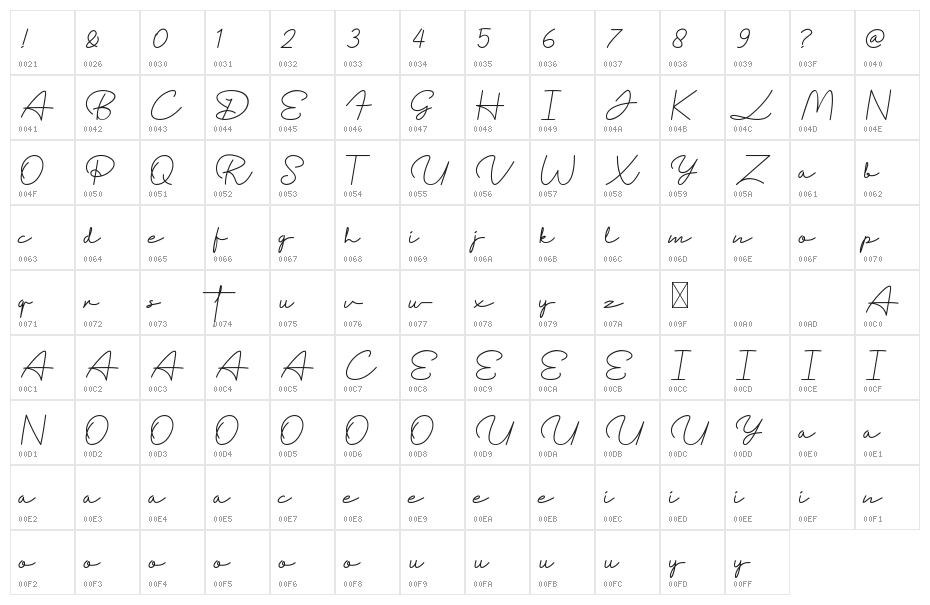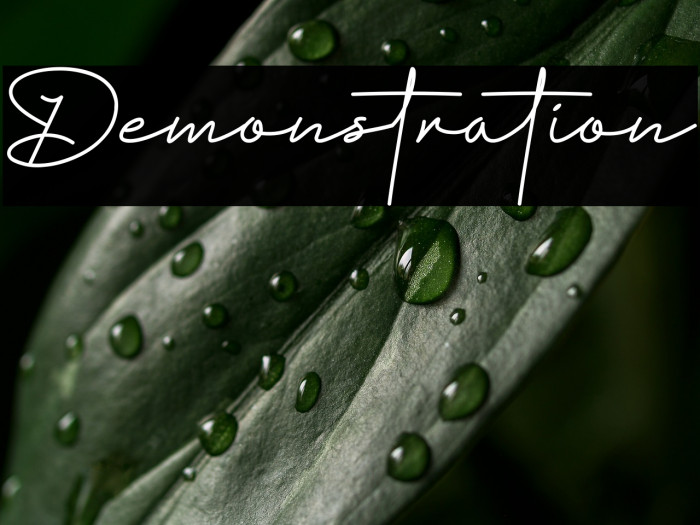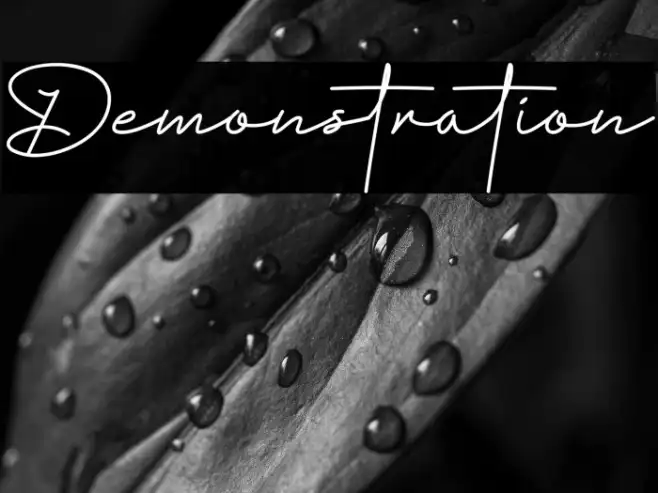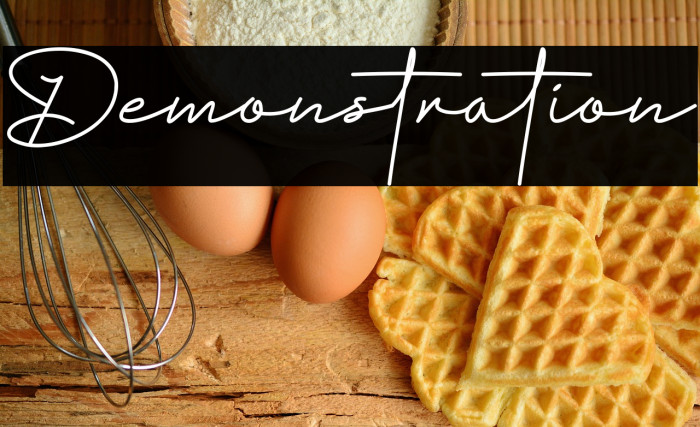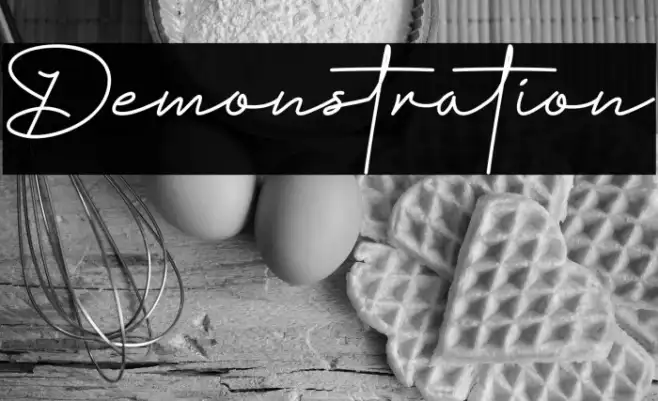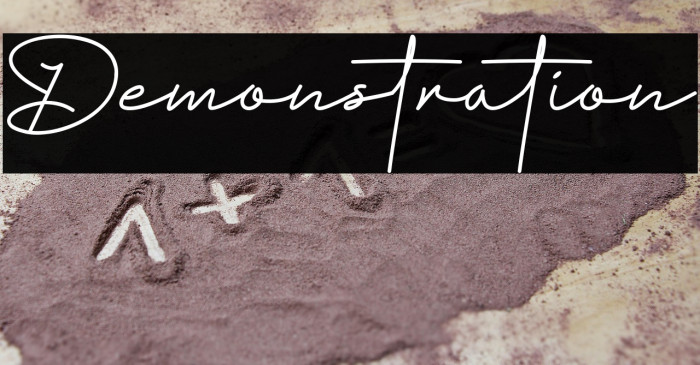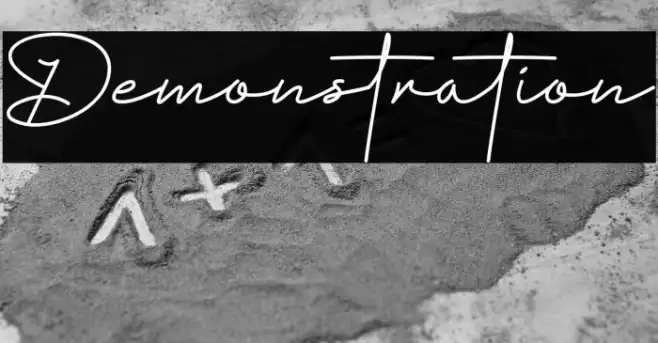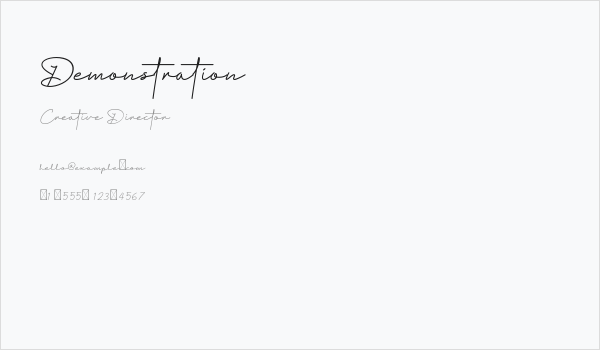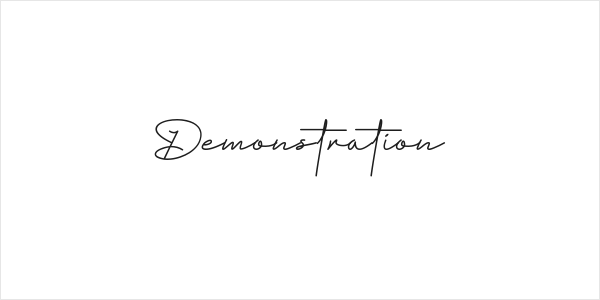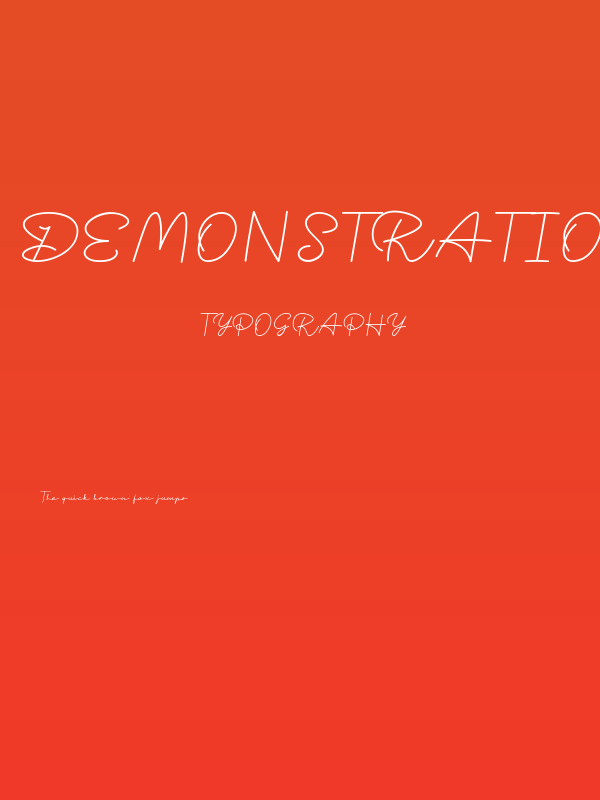
Demonstration Font
Demonstration Description
This font features a flowing, cursive style with elegant, connected strokes that mimic the fluidity of handwriting. The uppercase letters are slightly more formal, with a consistent slant and smooth curves, while the lowercase letters maintain a casual, approachable feel. The numbers are clear and legible, maintaining the cursive theme with subtle flourishes. Special characters like the ampersand and exclamation mark are creatively integrated, adding a touch of personality. Overall, the font exudes a sense of sophistication and charm, making it suitable for a variety of creative applications.